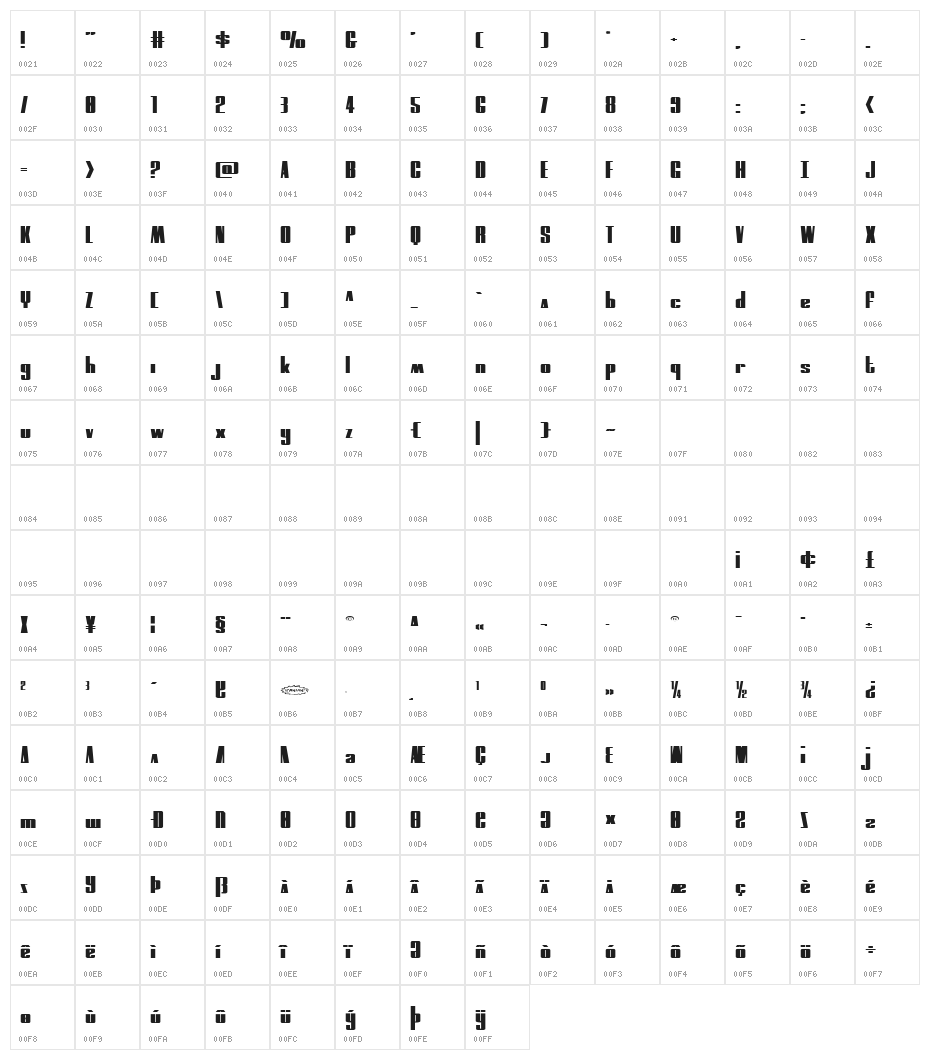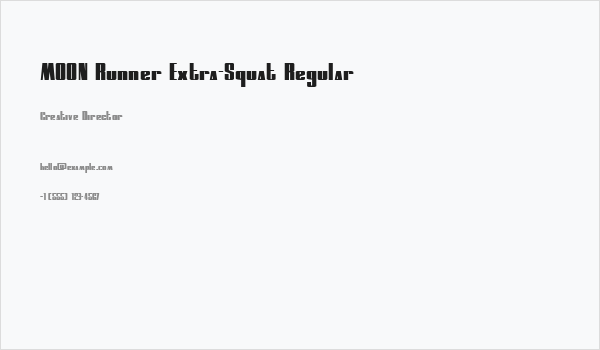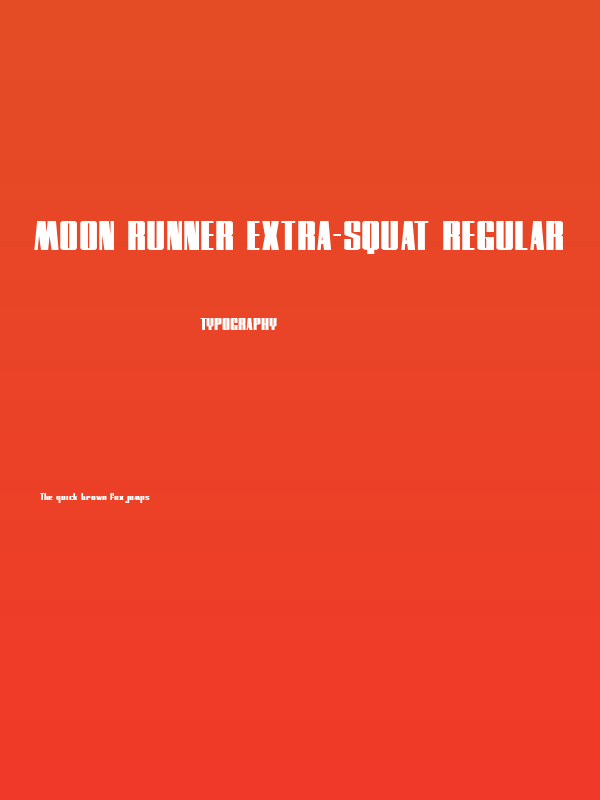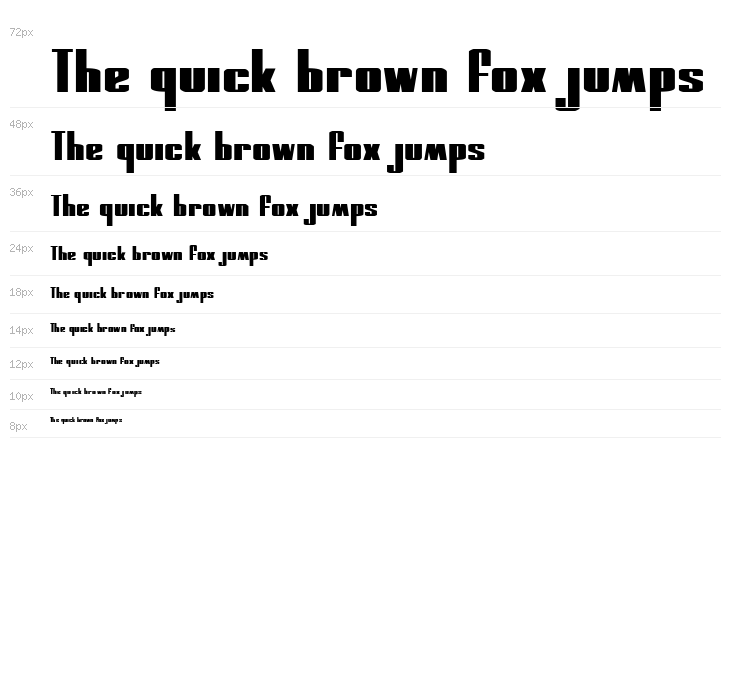
MOON Runner Extra-Squat Regular Font
MOON Runner Extra-Squat Regular Description
This font features a bold and impactful design with a strong geometric influence. The uppercase letters are wide and squat, giving a sense of stability and strength. The lowercase letters maintain a similar width, creating a cohesive look across different cases. Numbers are equally bold, ensuring consistency in design. Special characters are designed to match the overall aesthetic, making them suitable for various uses. The font's thick strokes and minimal contrast make it highly legible, even at smaller sizes. Its unique style is ideal for projects that require a modern and assertive appearance.